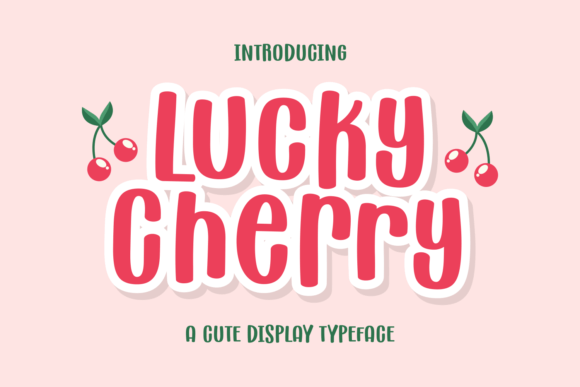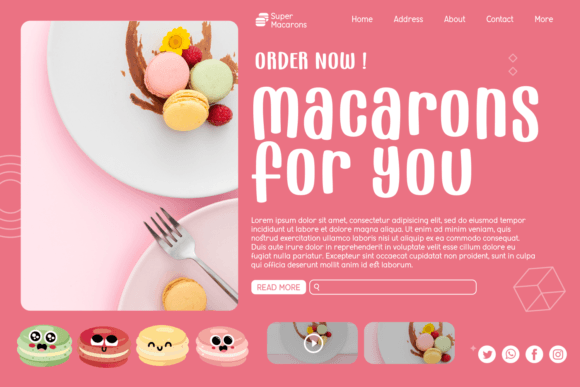
Lucky Cherry Font
Lucky Cherry is a delightful display font with a cute style. Its playful design adds a touch of fun to any project. Perfect for creating eye-catching headlines, posters, and more. Get lucky with Lucky Cherry!